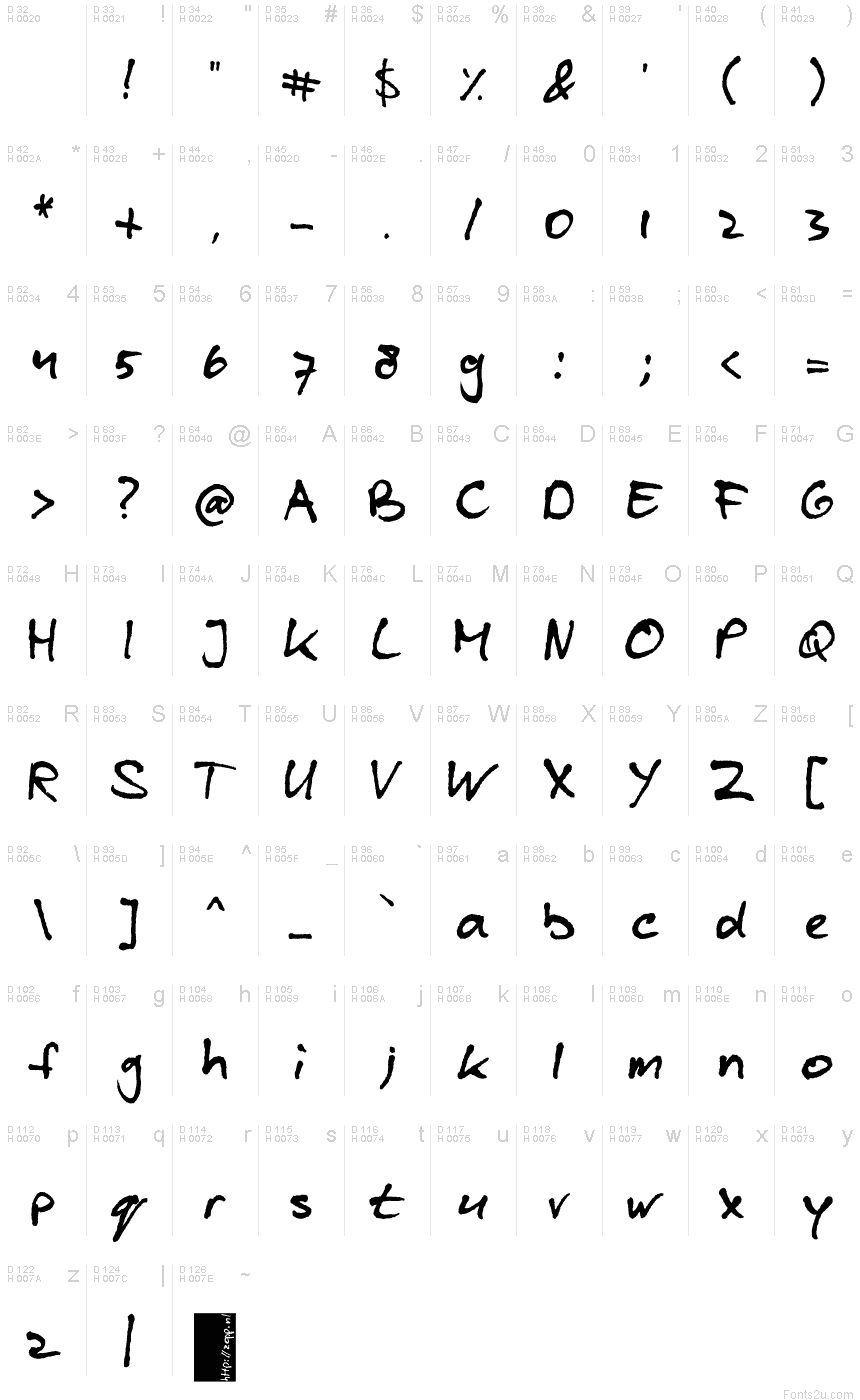
blzee
blzee font by Blaise is a free rough brush font. Its chunky, inky strokes wobble and pool like fresh paint on cardboard, giving every word a scrappy, handmade pulse that’s bold without feeling polished.